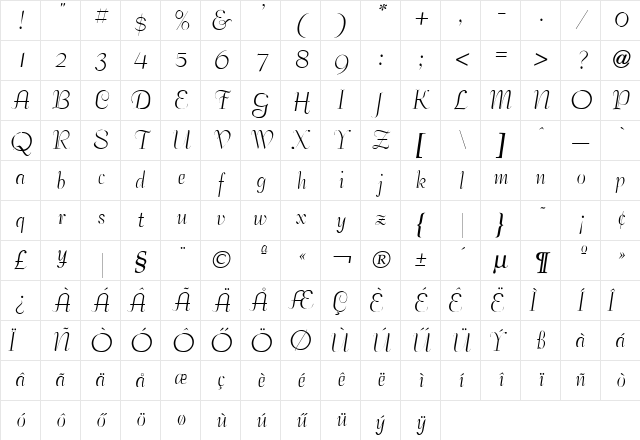
BallroomTango Regular
BallroomTango Family
Design Context for BallroomTango
BallroomTango is a composed and adaptable typeface that performs quietly and consistently across a wide range of design contexts.